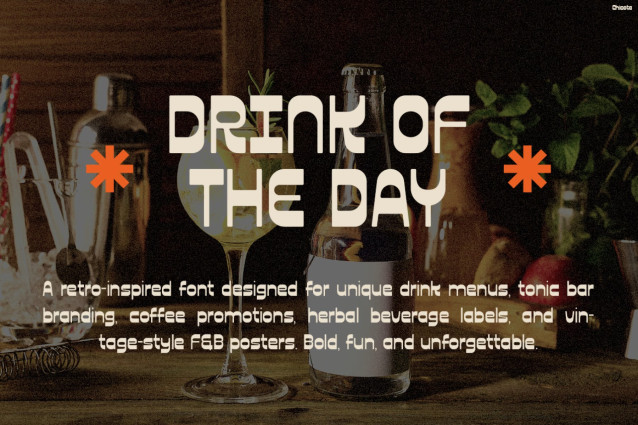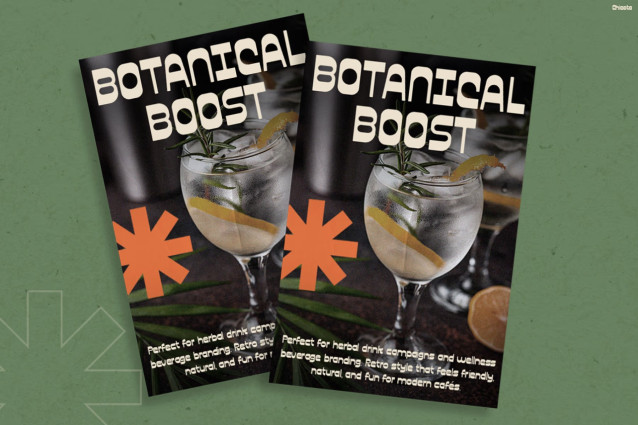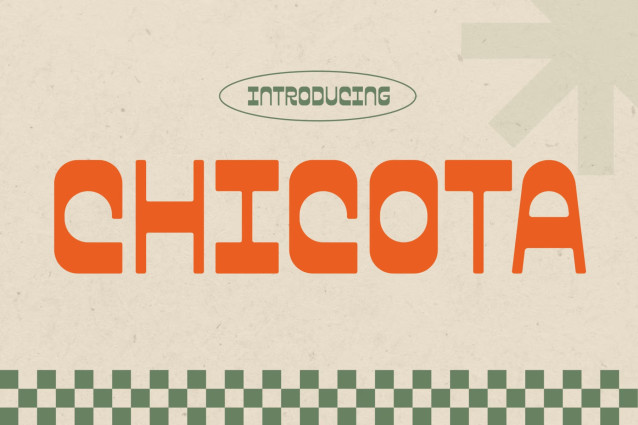
Chicota Font
Retro Font Chicota – Funky Vintage Flavor That Pops
Retro Font Chicota brings a playful retro aesthetic with chunky curves, funky geometric shapes, and bold vintage energy that instantly makes designs stand out. Moreover, the unique letterforms create a nostalgic atmosphere inspired by classic café signs, retro beverage ads, and stylish 70s packaging. At the same time, the font stays clean, readable, and highly versatile for modern creative projects. In addition, its eye-catching structure helps headlines pop beautifully across posters, menus, logos, social media graphics, and branding layouts.
As a result, every design feels more expressive, energetic, and visually memorable. Even better, Retro Font Chicota comes with Multilingual Support for 67 languages, so your projects can connect with wider audiences worldwide more effectively.